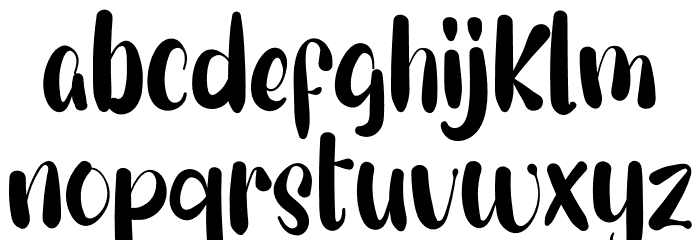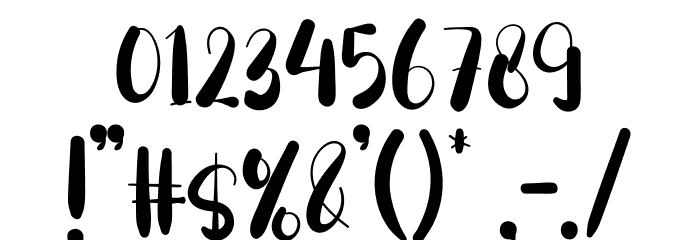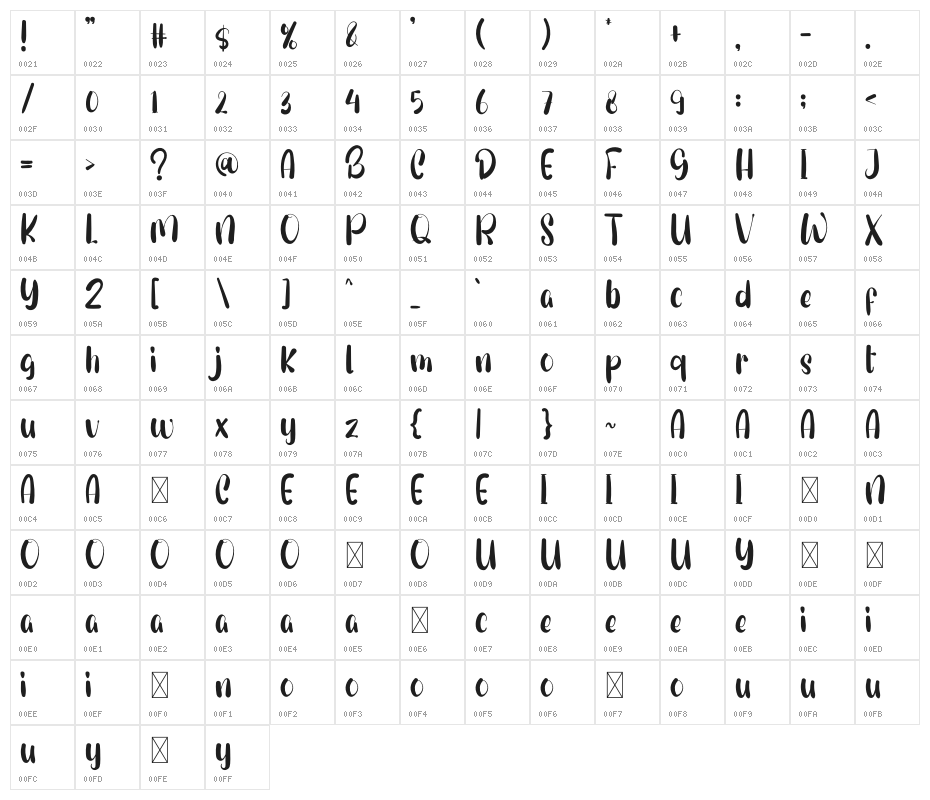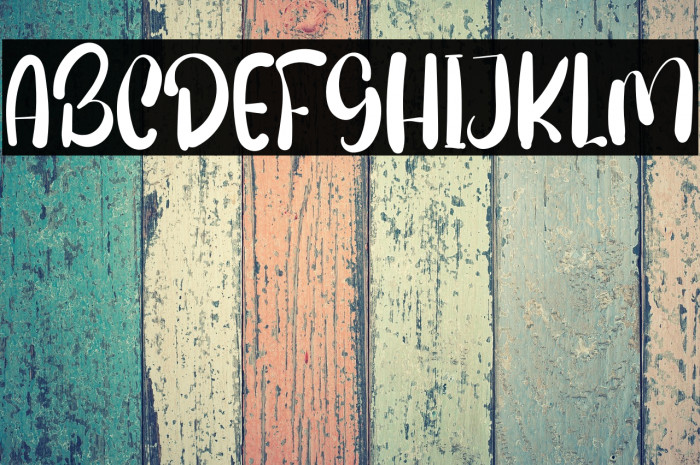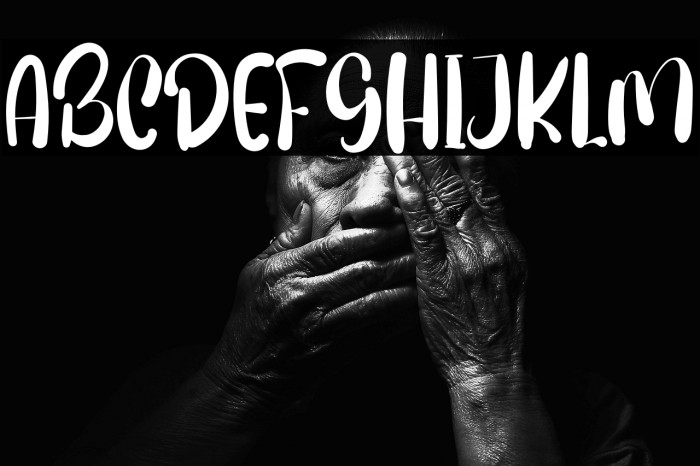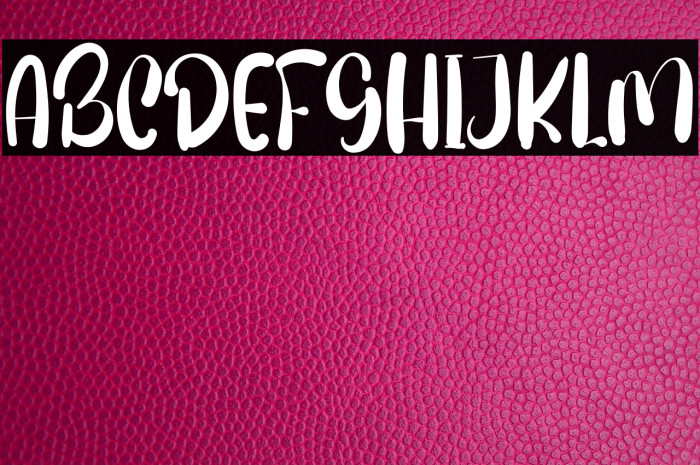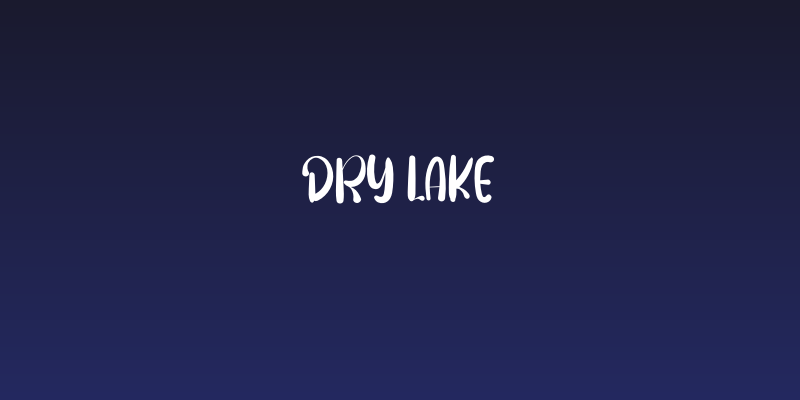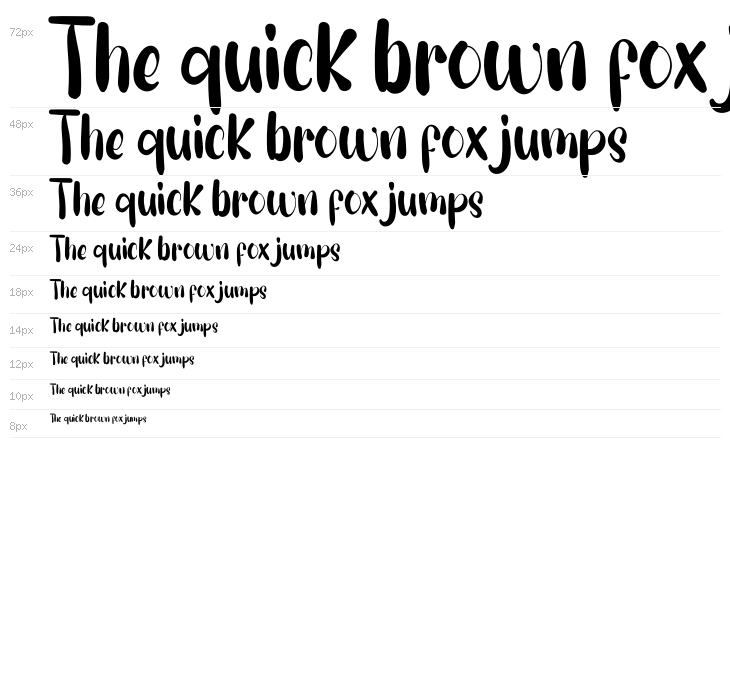
Dry Lake Font
This font features a bold and expressive style with a handwritten appearance. The characters are thick and rounded, giving them a playful and dynamic look. The uppercase letters are slightly taller than the lowercase, maintaining a consistent width throughout. The numbers and special characters follow the same bold and rounded design, ensuring uniformity across all elements. The strokes vary in thickness, adding a lively and energetic feel to the text. This font is ideal for projects that require a personal and informal touch.
A bold, handwritten-style font with rounded, expressive characters.
- Font: Dry Lake
- Proposed Projects: Perfect for greeting cards, playful branding, children's books, and creative posters.
- Category: Handwritten